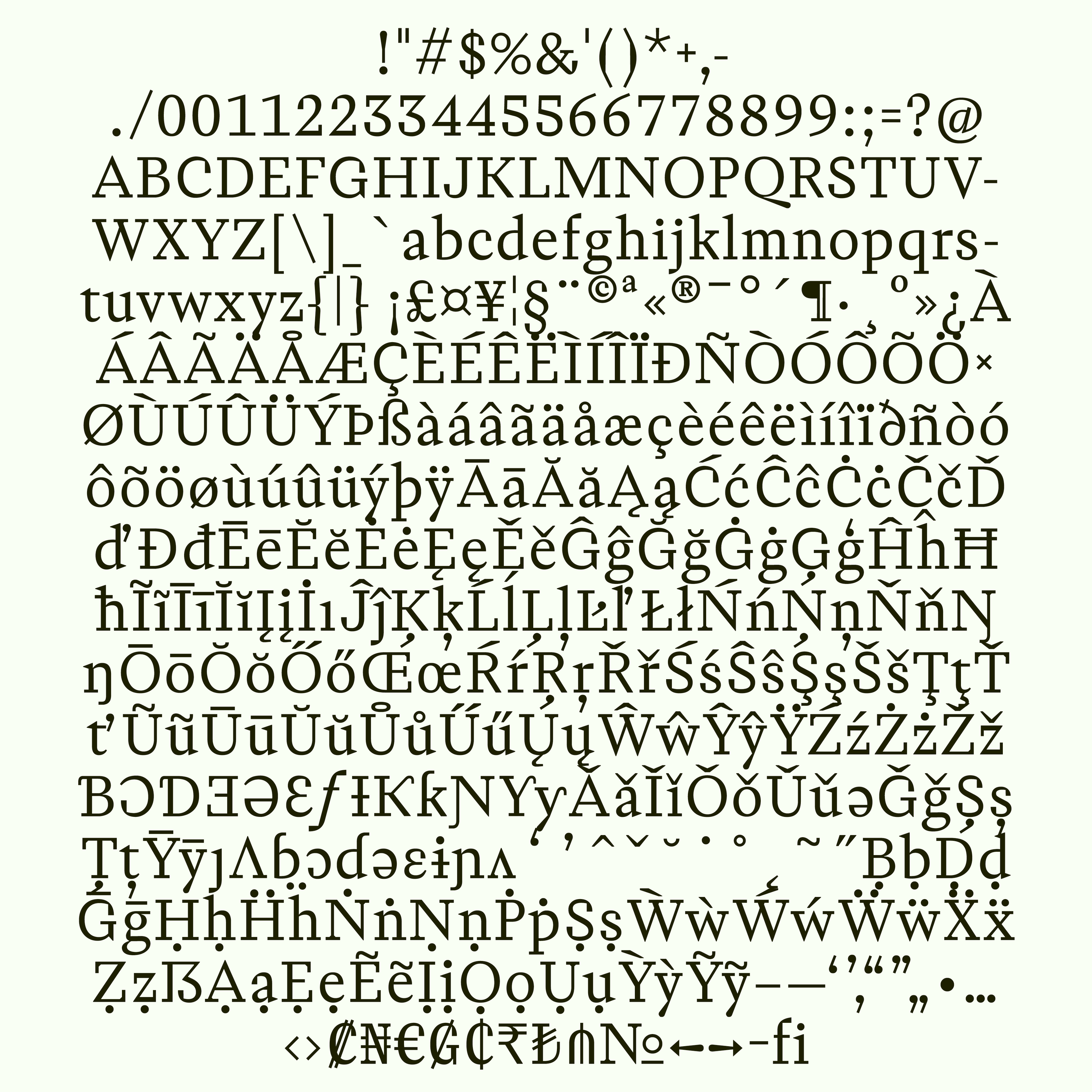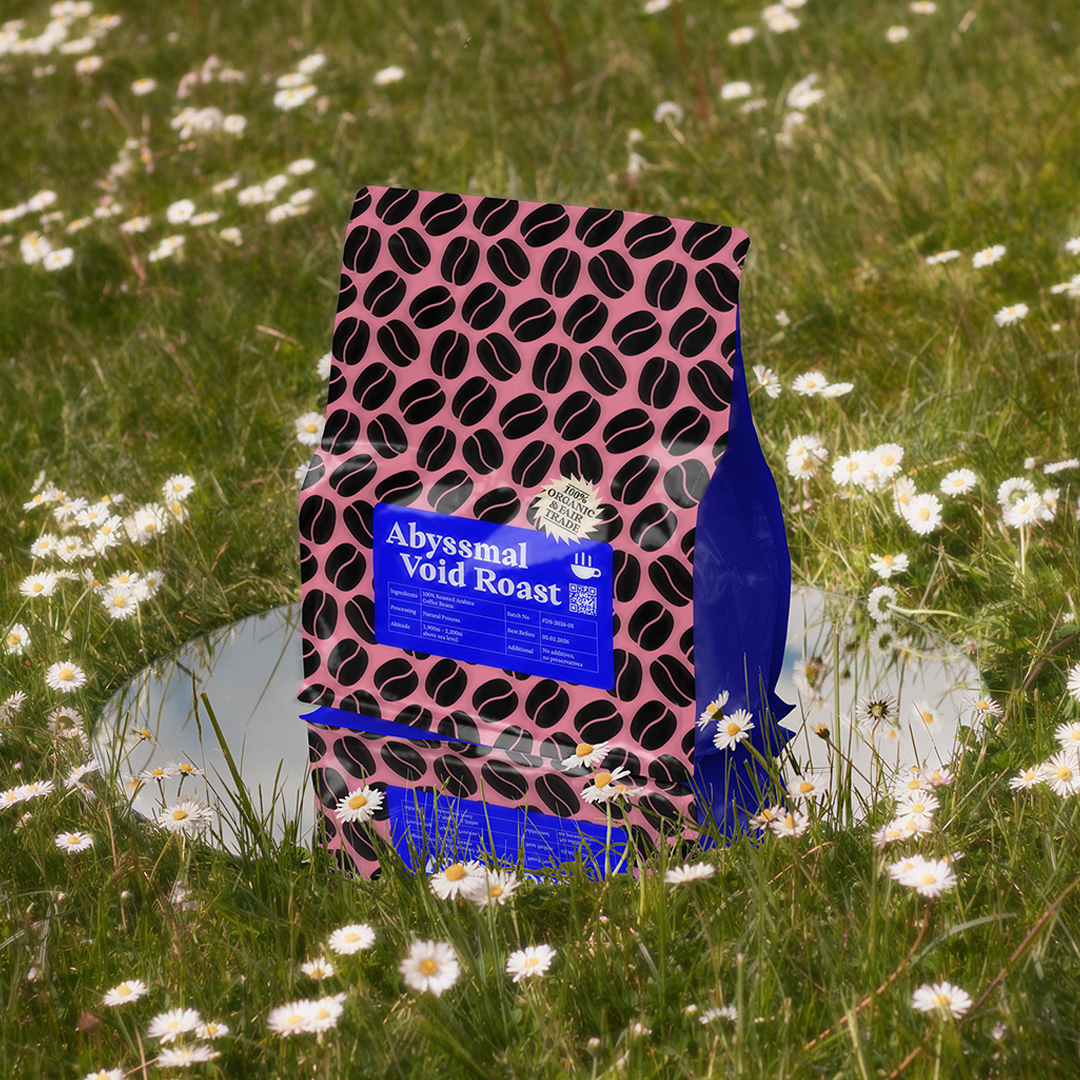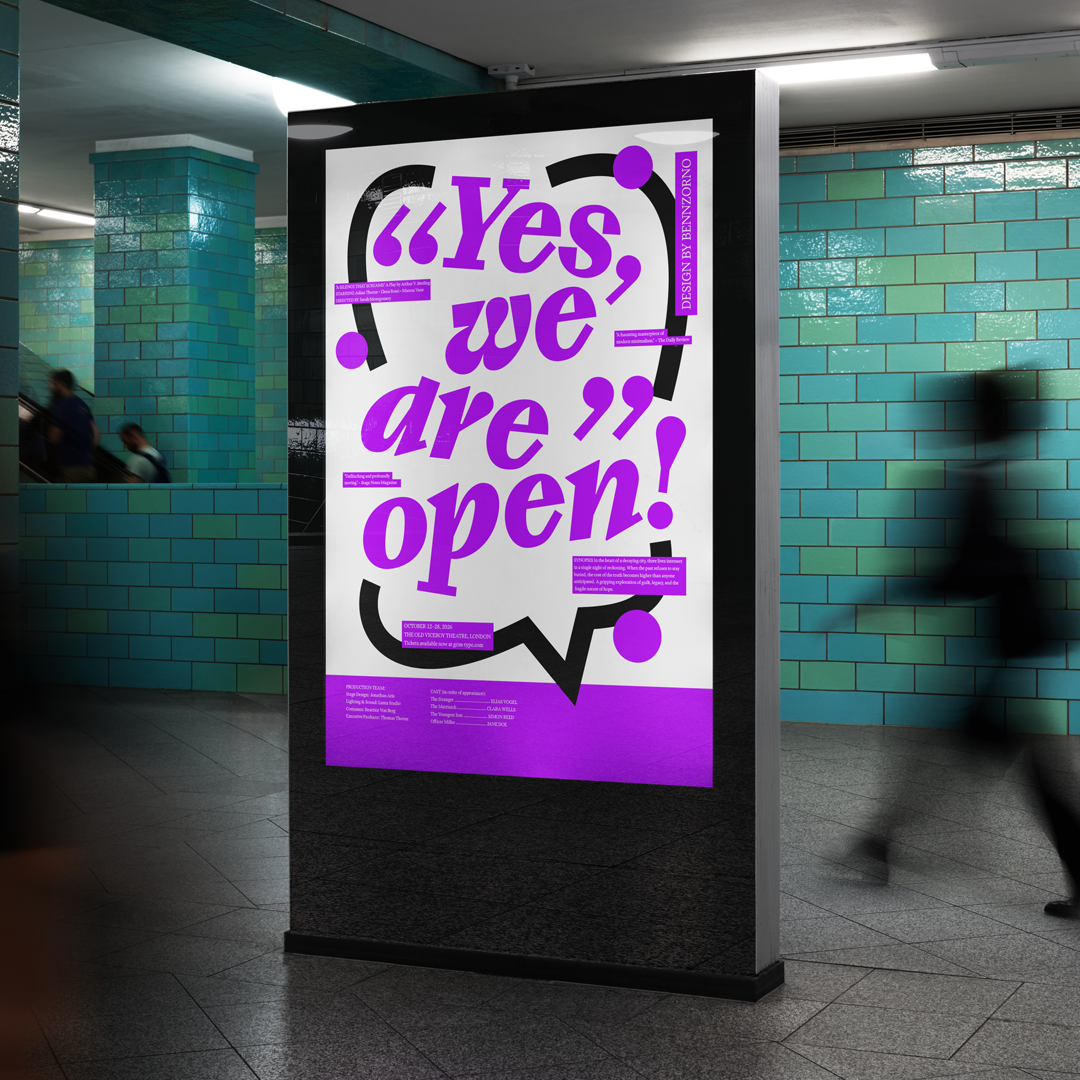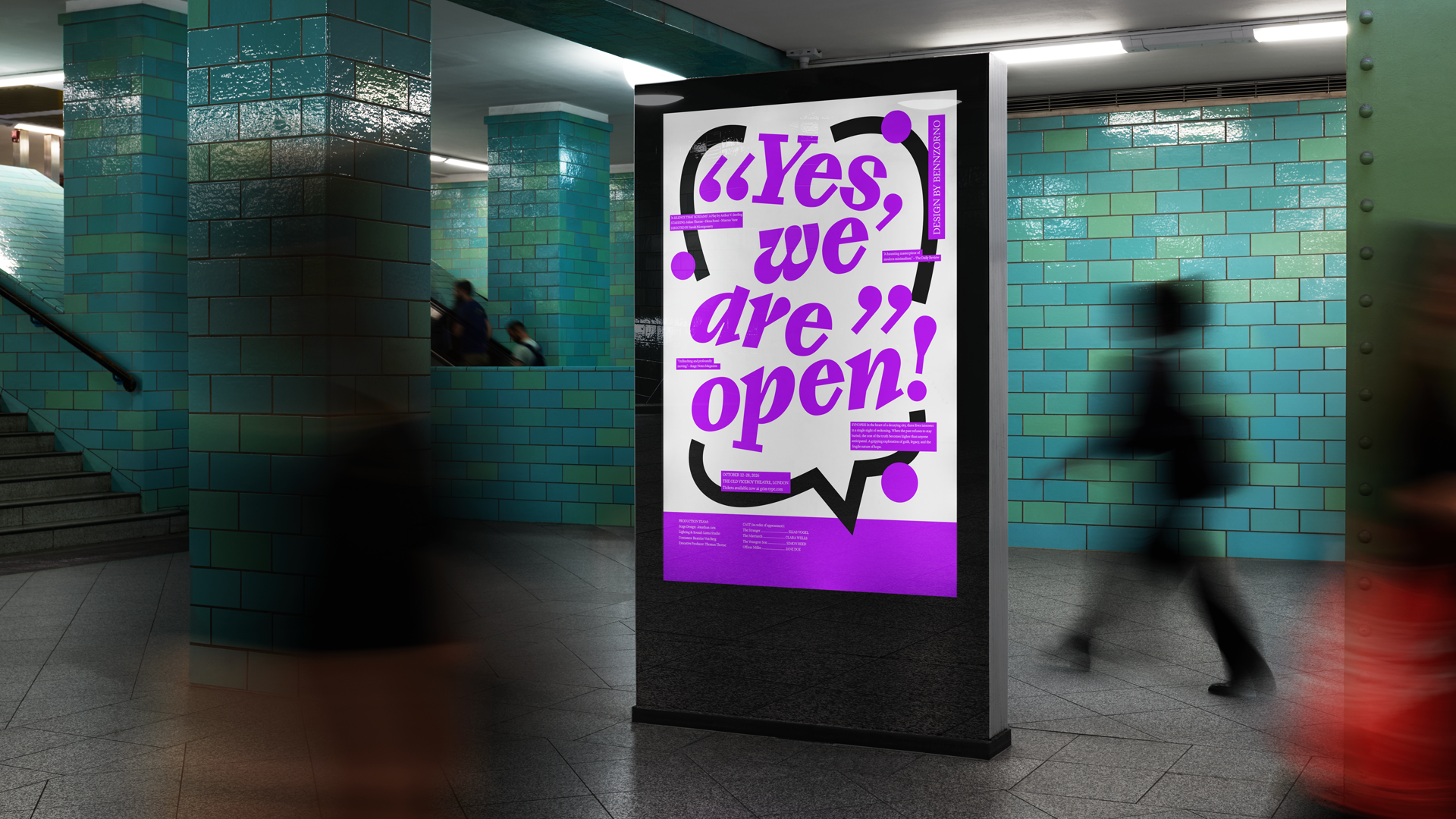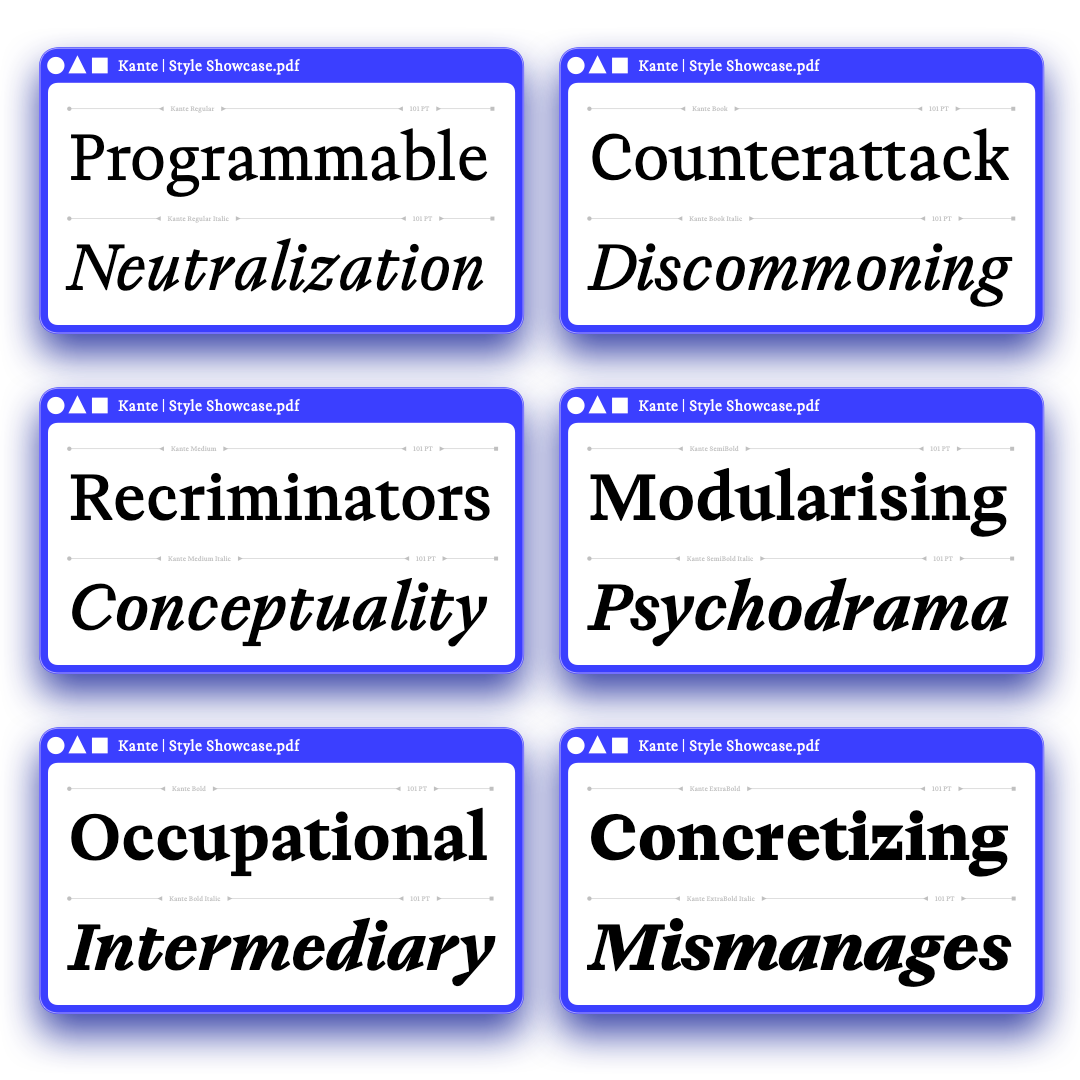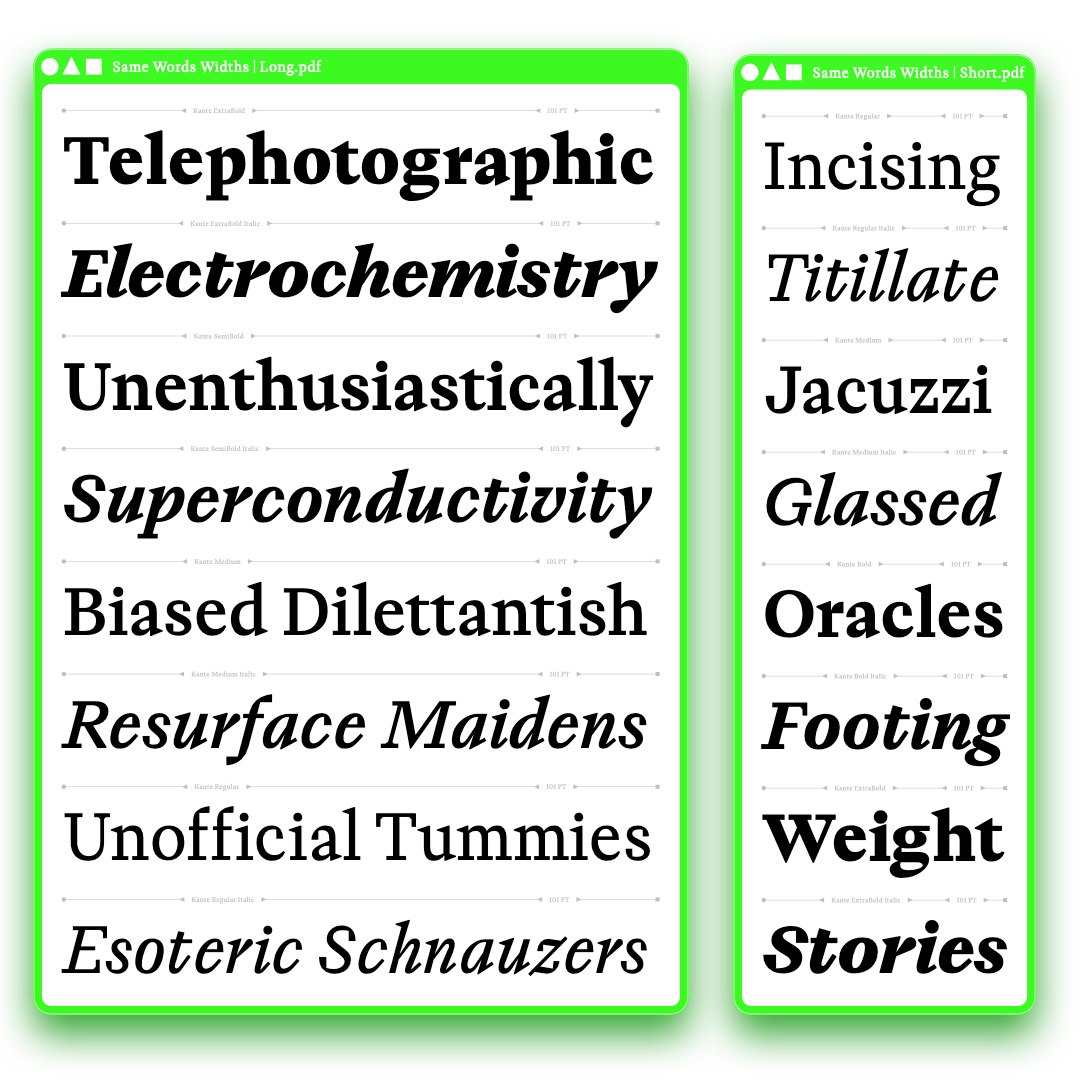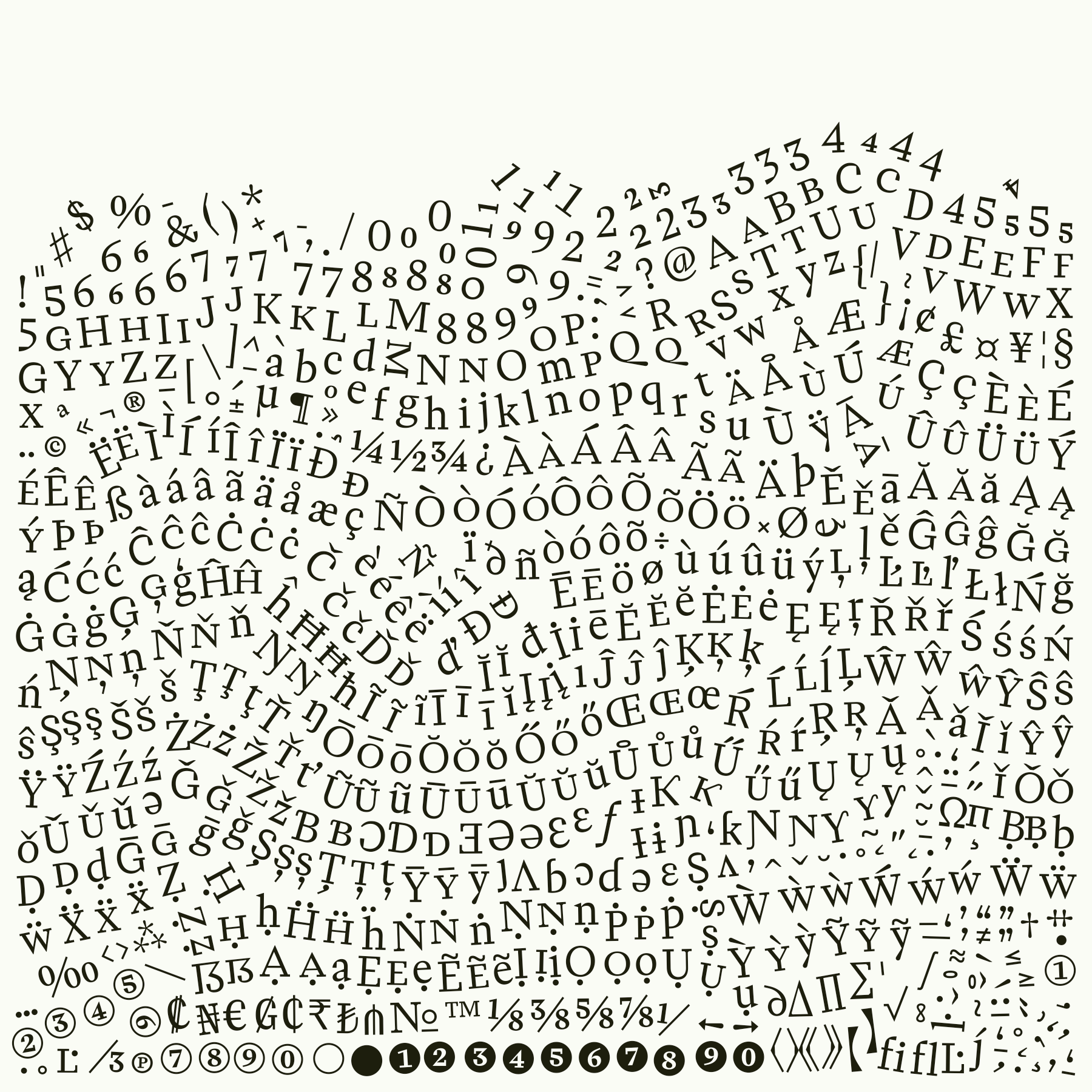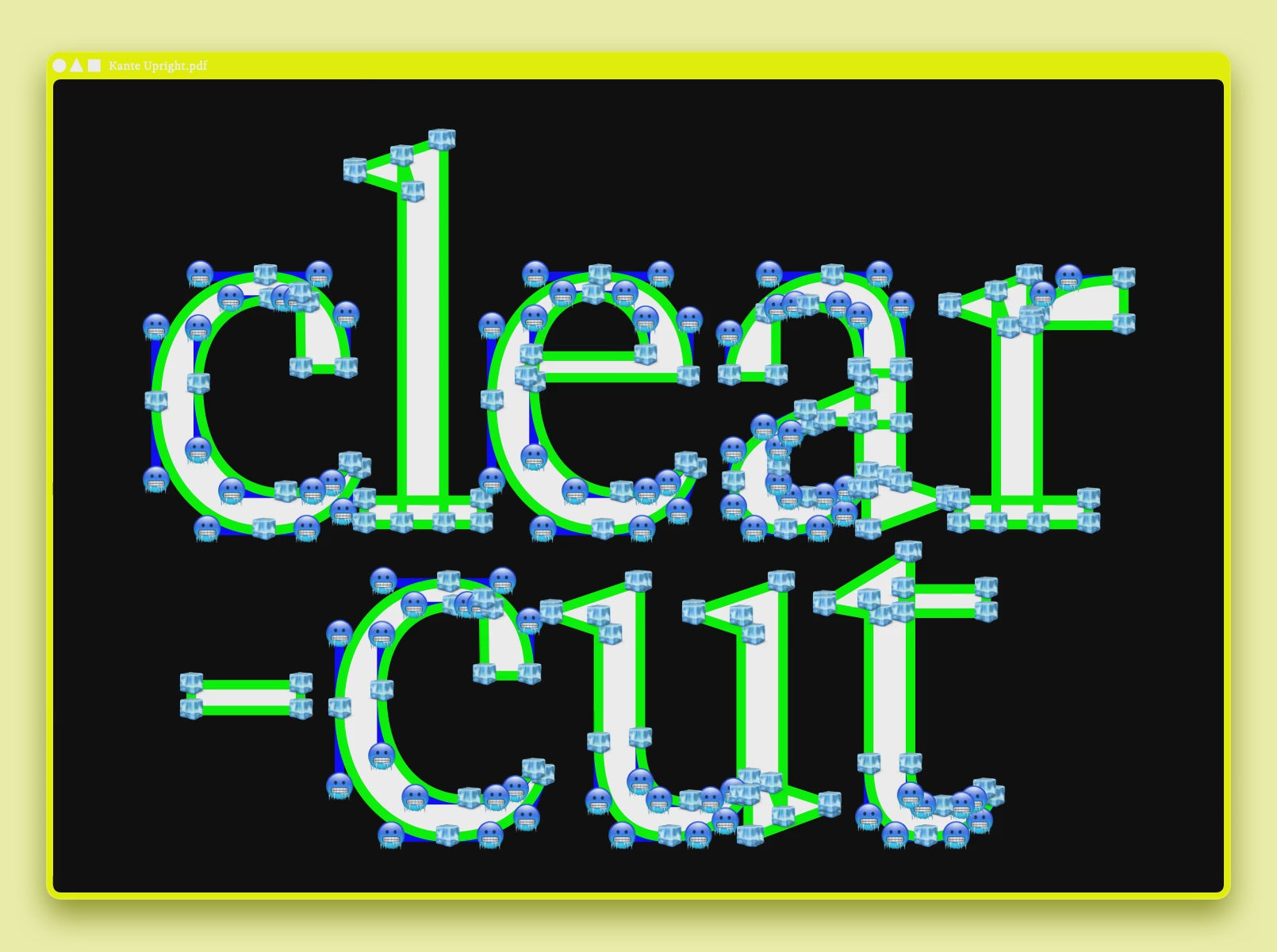
Kante
“If you like this, you should read me in small texts”
— The made up personification of this very typeface (it’s an edgelord)
Kante
Started as a FutureFonts typeface, Kante is a decisive and digital adaptation of a Garamondesque style. It is sleak, modern and clean in big sizes and very readable for small texts.
The often proclaimed marketing oxymoron of type finally becomes true: You get great texture in small sizes for large chunks of text where all the details blend back for a smooth reading experience. But if you happen to use Kante in big sizes, if reveals its character and not-so-subtle-abymore features and — yes of course — edgyness.